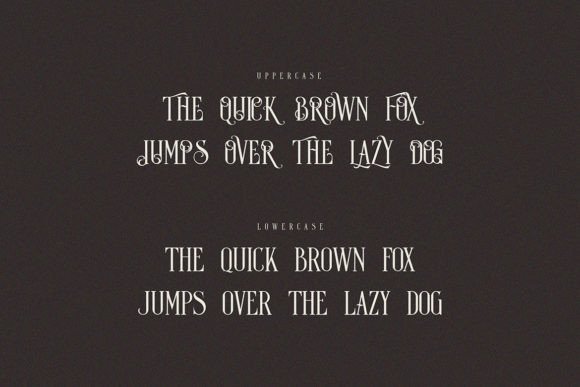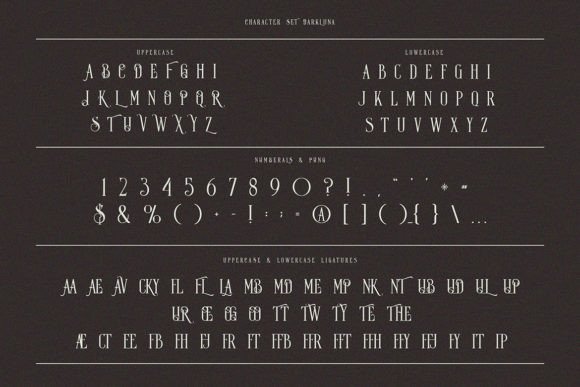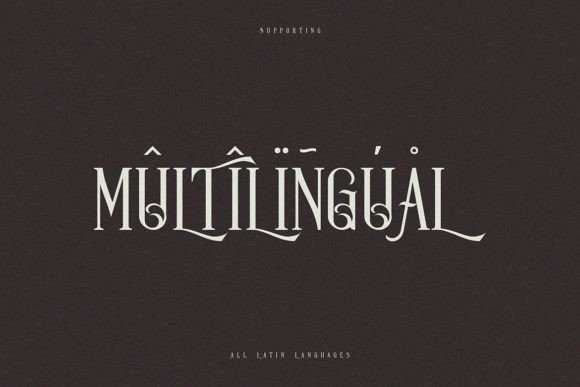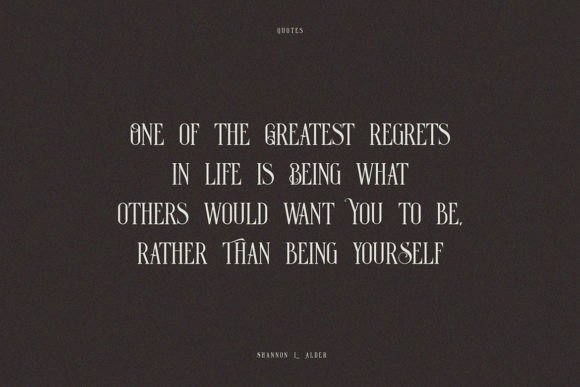
The Elusive Font: A Designer’s Journey with Dark Luna
I still remember the project like it was yesterday. I was working on a luxury brand’s brochure, and my client asked for a font that exuded timelessness and sophistication. I scoured the internet, tried countless fonts, but nothing seemed quite right. That’s when I stumbled upon Dark Luna – a vintage and exclusive serif font that instantly caught my attention. In this article, I’ll share my experience with Dark Luna, its features, and how to make the most of it in your designs.
First Impressions: A Love Affair with Dark Luna
As soon as I opened Dark Luna, I knew I had found something special. The classic, yet modern aesthetic of this serif font is perfect for creating distinctive designs that stand out from the crowd. Here are a few things I love about Dark Luna:
- ✨ Unique character set: Dark Luna comes with a wide range of characters, including stylistic alternates, ligatures, and glyphs that add a touch of elegance to any design.
- ✅ Luxurious feel: The font’s vintage vibe gives it a luxurious feel that’s perfect for high-end brands, fashion, and lifestyle projects.
- 💯 Crafting a statement: Dark Luna’s distinctive style makes it easy to create eye-catching headlines, titles, and captions that demand attention.
No font is perfect, and Dark Luna is no exception. Here are a few things to keep in mind:
- 🤔 Glyphs can be finicky: Some glyphs and special characters require a bit of tweaking to get them to work seamlessly.
- ⚠️ Not ideal for body text: Dark Luna’s elegant style works best for headlines and titles. For body text, you may want to opt for a more legible font.
The Story Behind Dark Luna
Dark Luna was inspired by the classic typography of the early 20th century. Its designer sought to create a font that would evoke a sense of luxury and sophistication, while still feeling modern and fresh. The result is a font that’s both timeless and distinctive – perfect for designers looking to add a touch of elegance to their projects.
| Font Name | Dark Luna Font |
| Author | JumboDesign |
| What makes Dark Luna unique? | Dark Luna’s unique character set, including stylistic alternates, ligatures, and glyphs, sets it apart from other serif fonts. |
| Is Dark Luna suitable for body text? | While Dark Luna is stunning for headlines and titles, it’s not ideal for body text. Its elegant style works best for short bursts of text. |